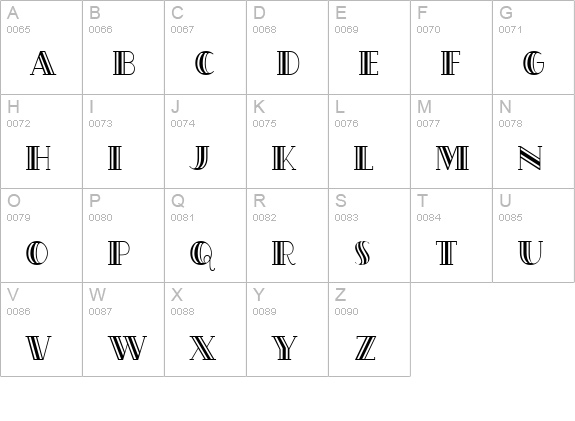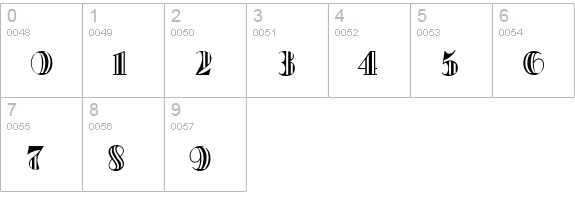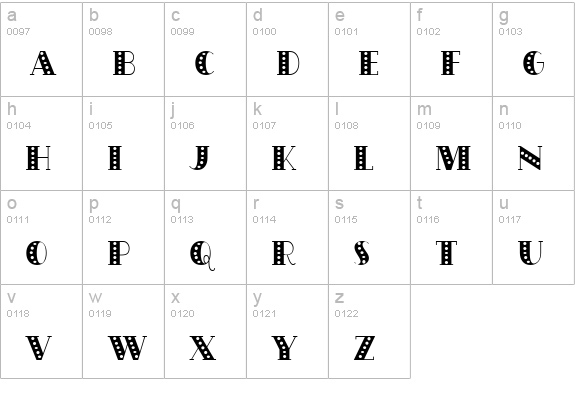
OakParksTripped Font Details
OakParksTripped is a beautifully designed font that exudes a sense of playfulness and creativity. With its unique tripped edges and bold, clean lines, this font is perfect for making a statement in your designs. Whether you're working on a logo, poster, or branding project, OakParksTripped will add a touch of whimsy and character. What's even better is that OakParksTripped is completely free to download at FontsMarket.com. This means you can easily access and use this eye-catching font in your projects without any cost. Don't miss out on the opportunity to elevate your designs with OakParksTripped - download it today and let your creativity soar!